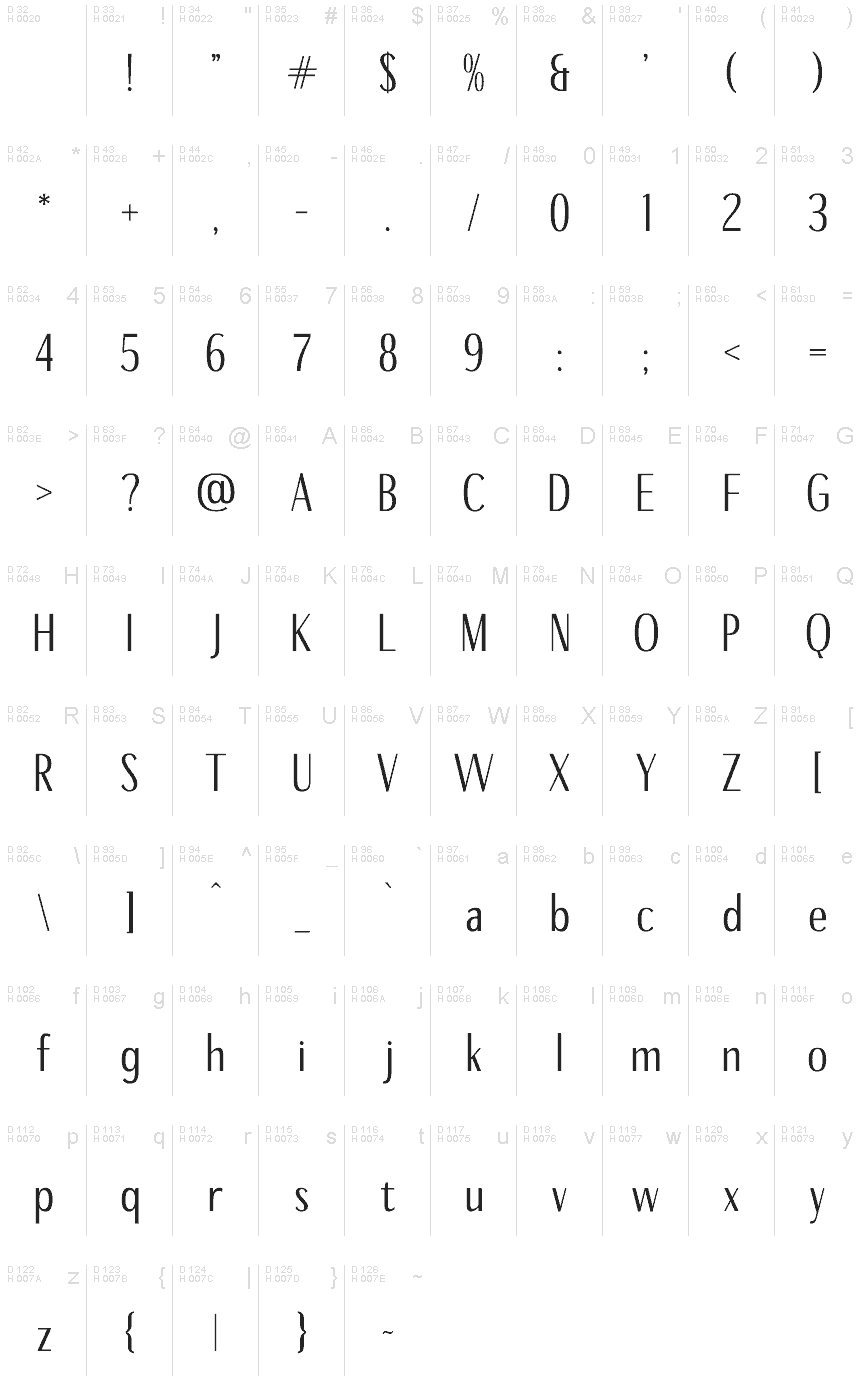
Benedict Sans Regular
Benedict Sans font is a light, condensed sans serif created by Storytype Studio. Its sophisticated charm is achieved through modern letterforms and a clean overall design. Furthermore, it combines elegance with versatility which makes it suitable for various purposes whether formal or casual in style. Benedict easily transforms into the user’s shape of imagination.